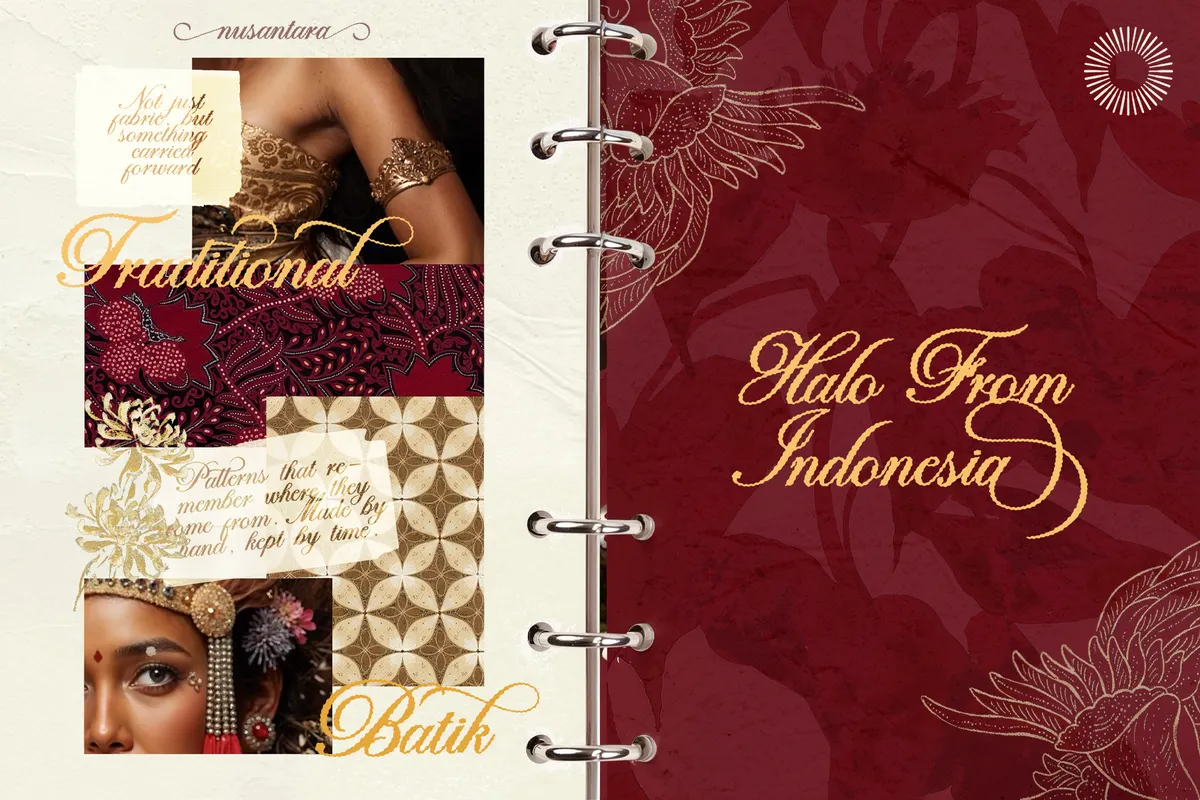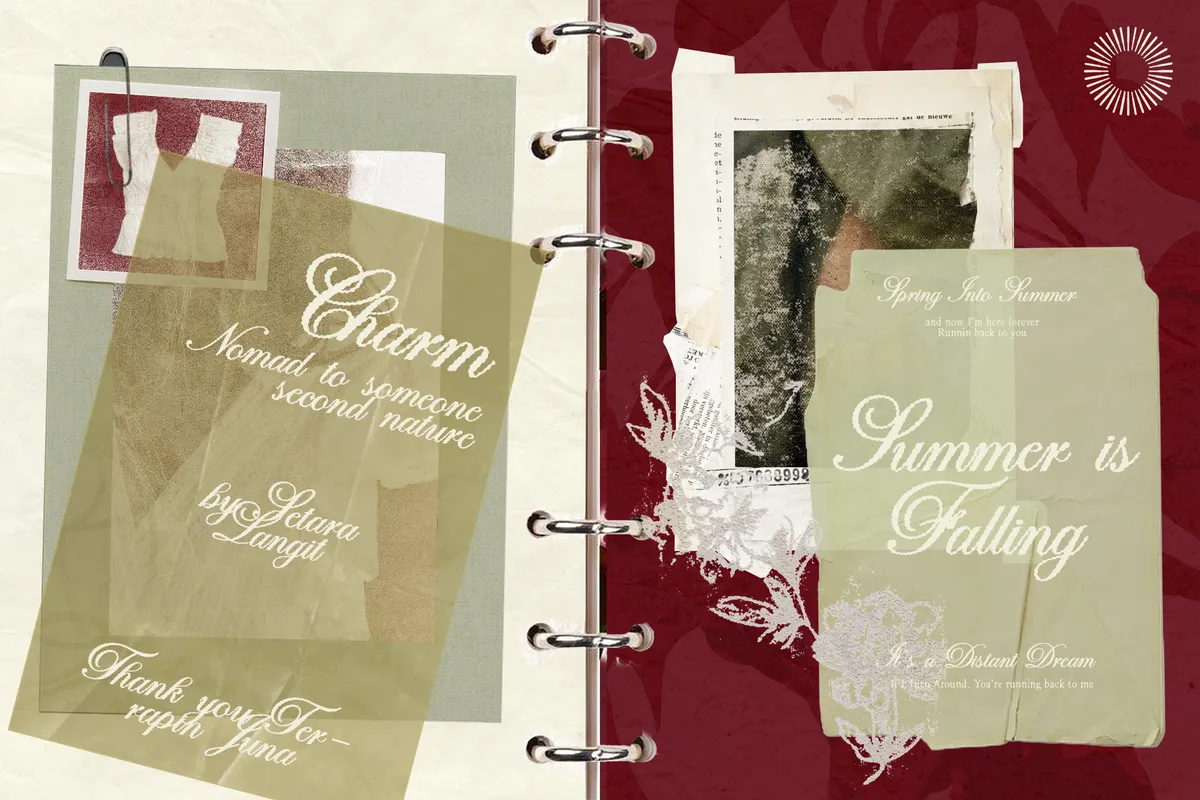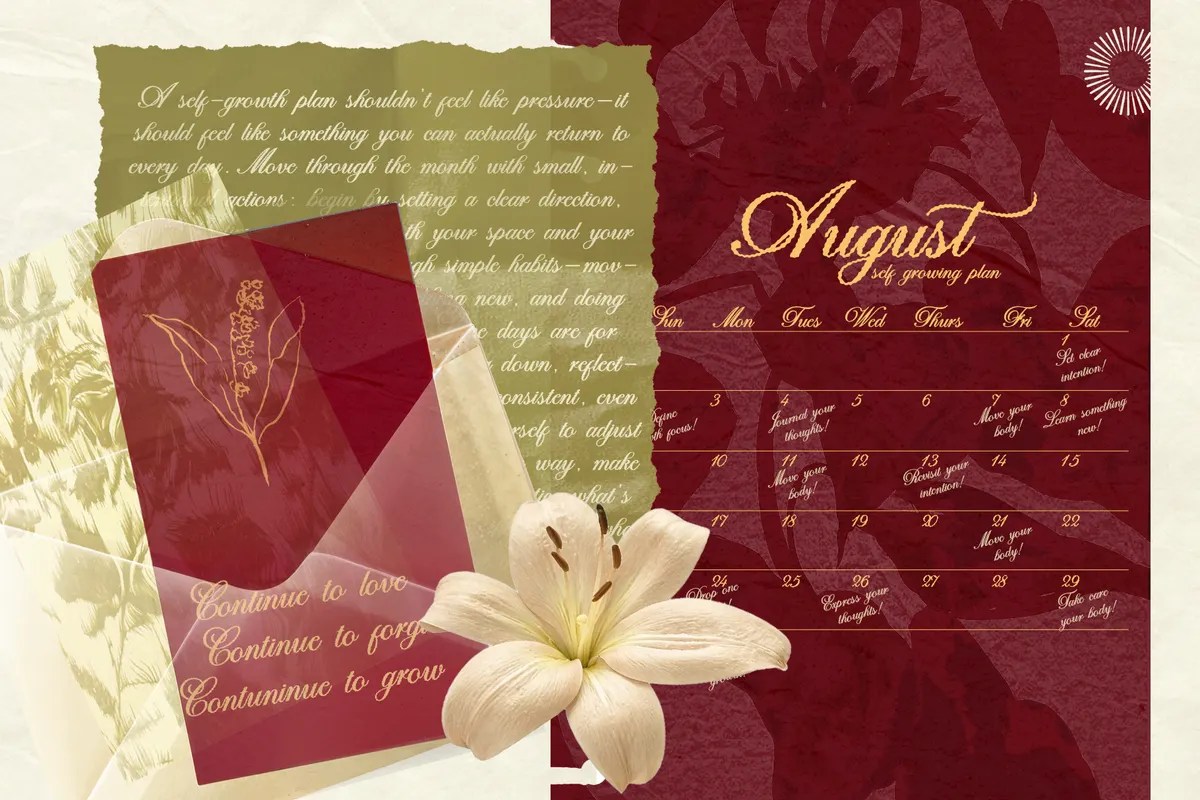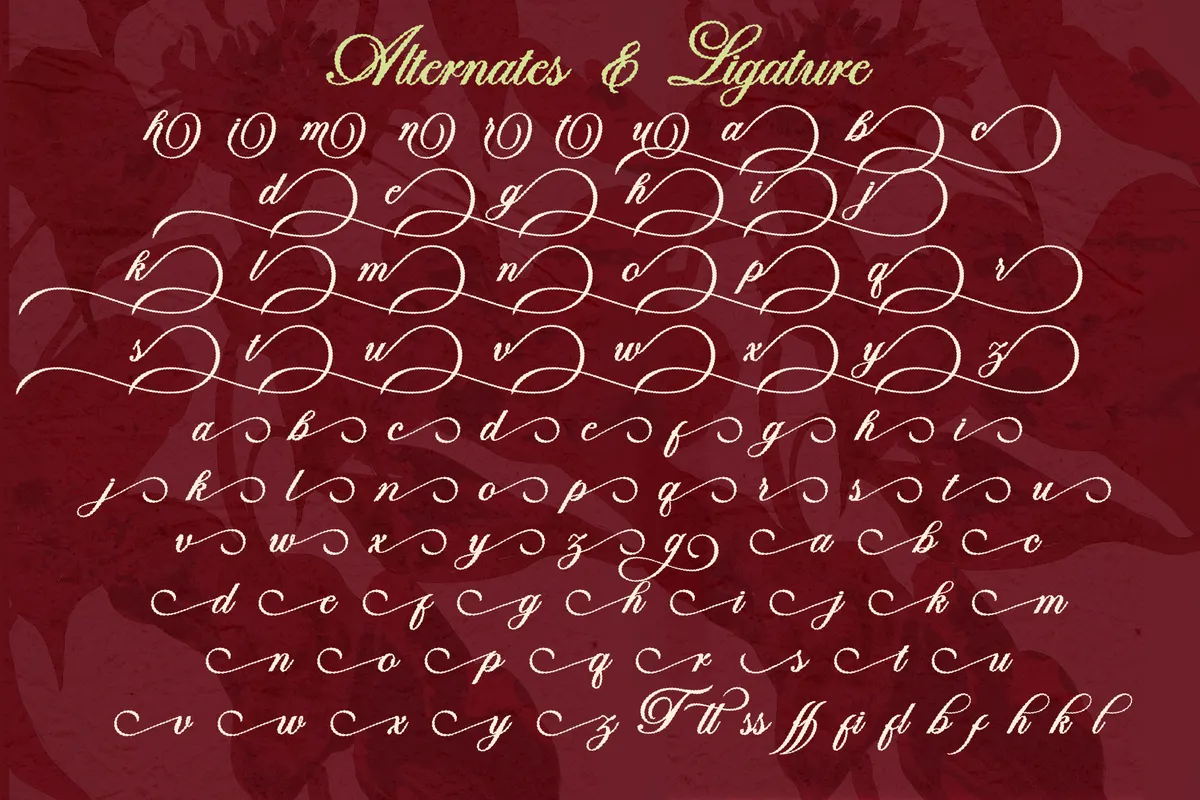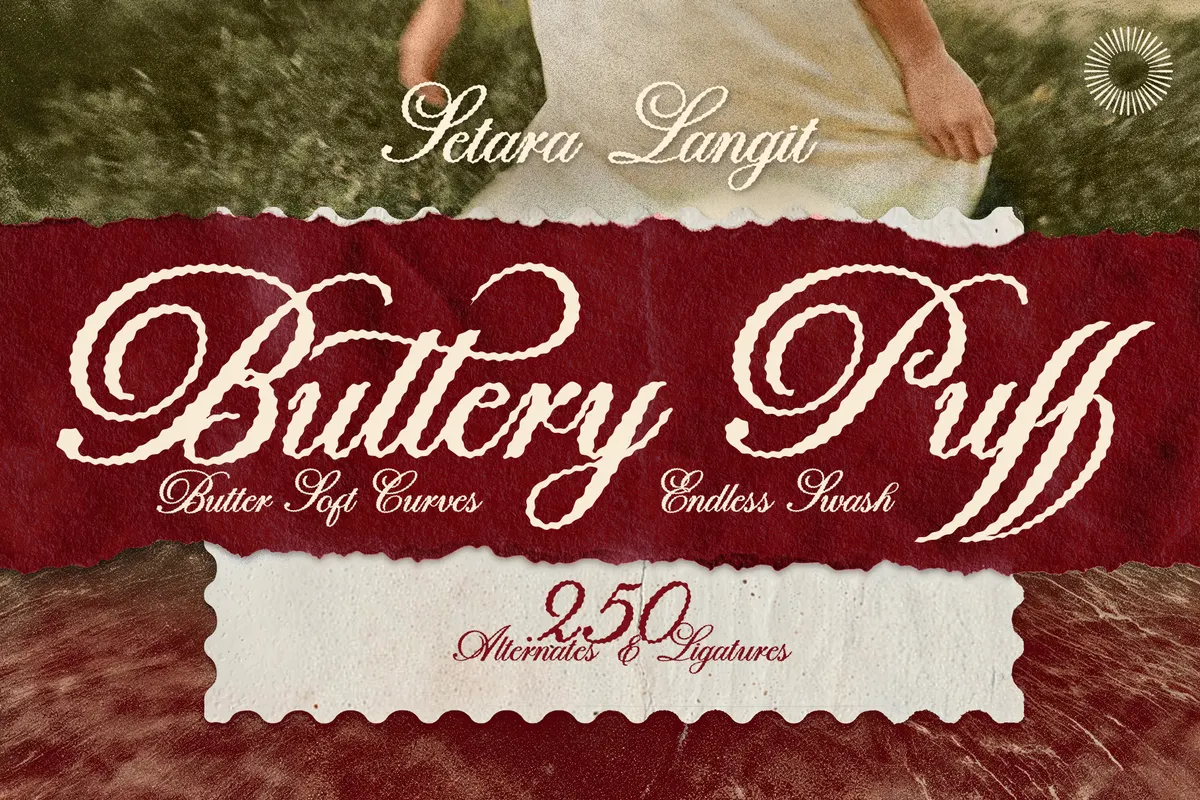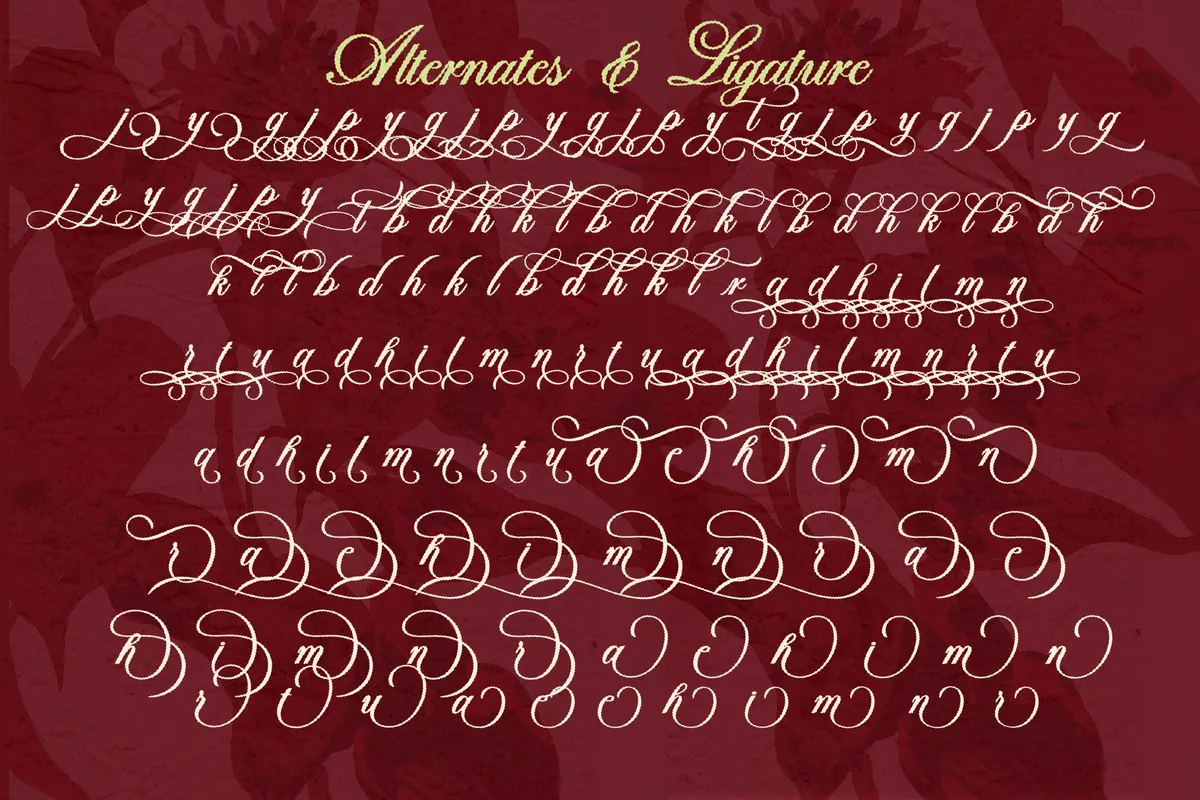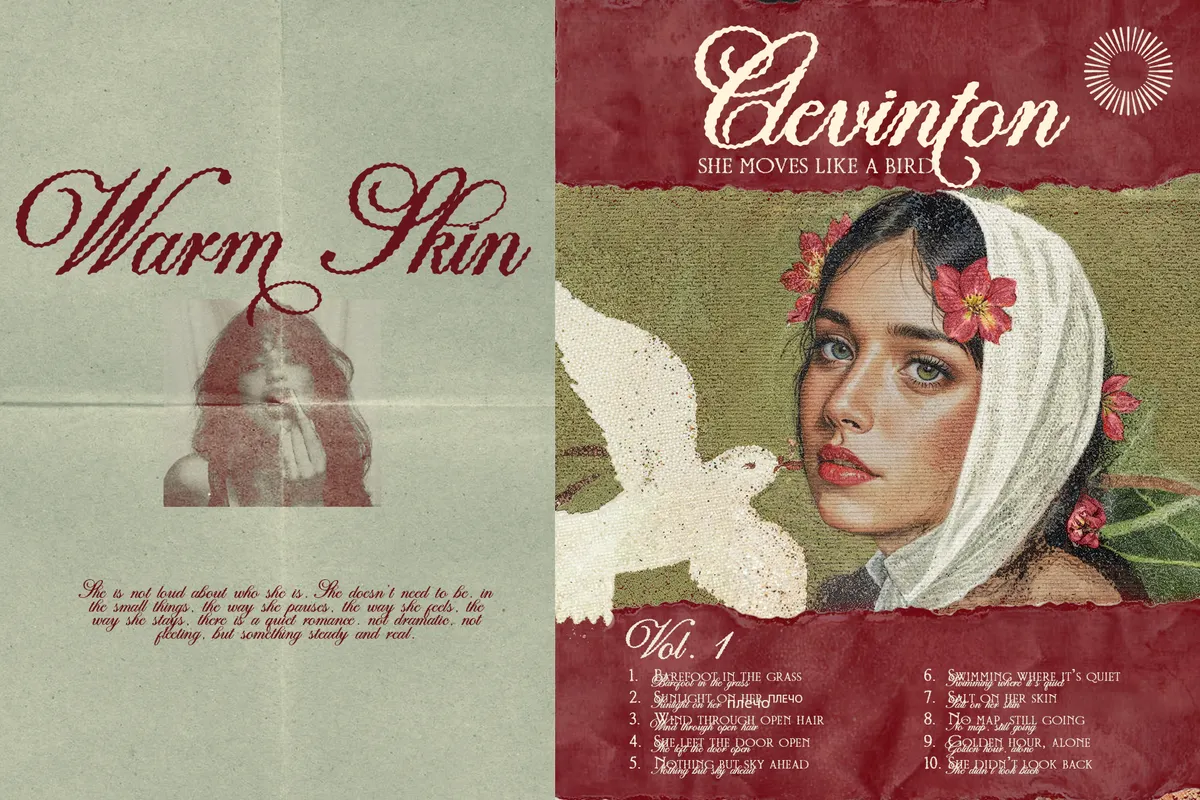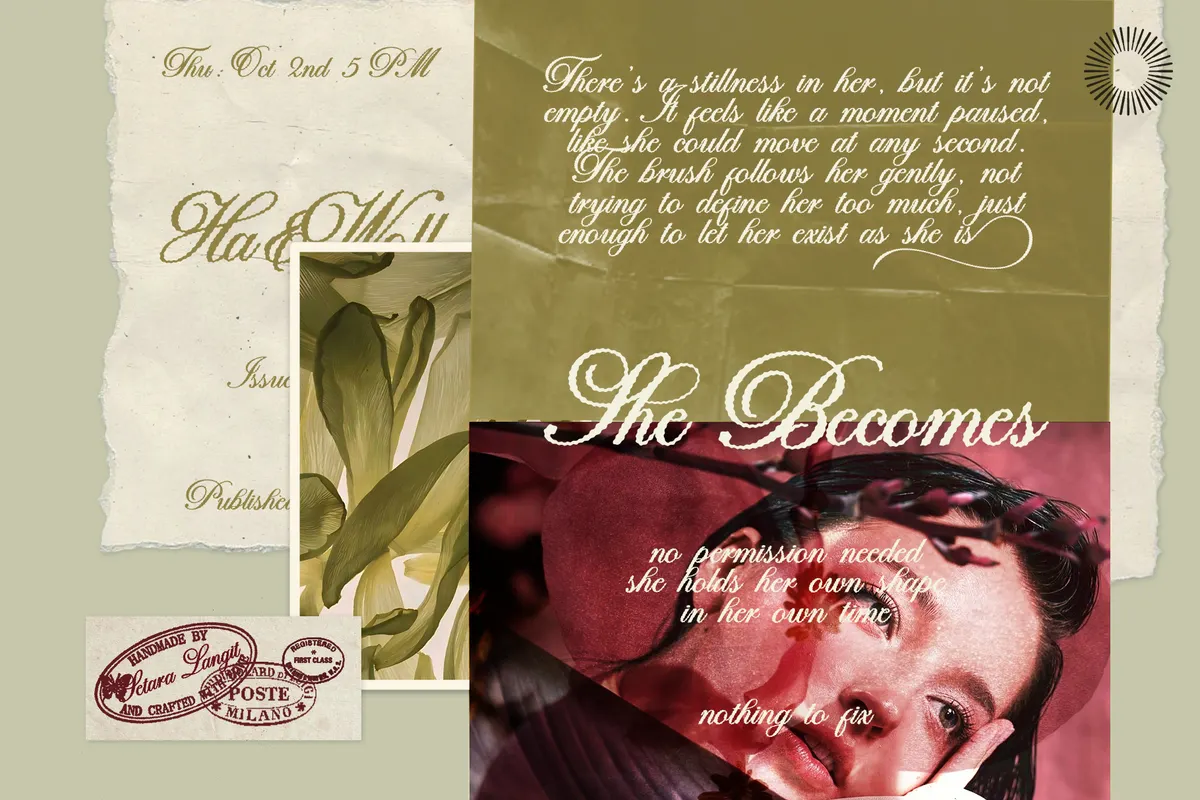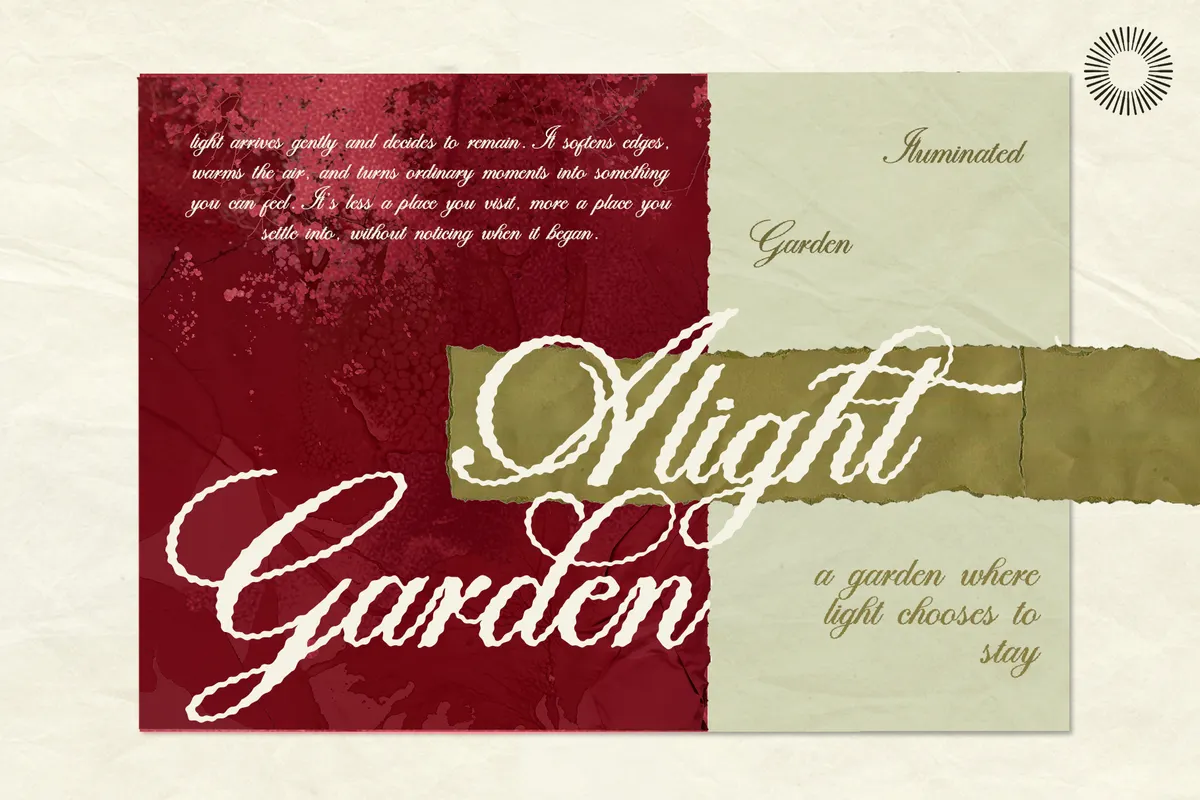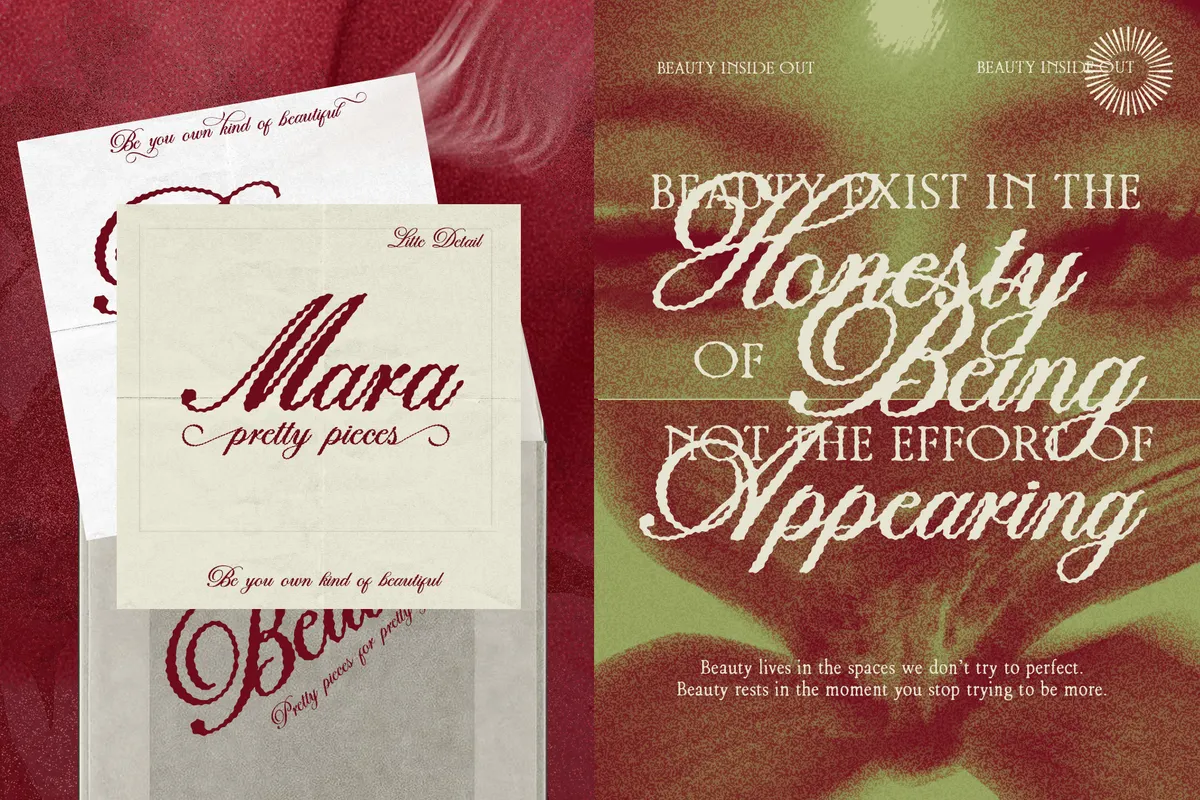
Buttery Puff - Endless Swash Script Font
Buttery Puff
Buttery Puff draws a smooth, looping script with soft curves and heavy swash detail, closer to a hand-lettered wedding invitation than a plain calligraphy face. Twenty stylistic alternate sets swap in looser connecting forms across nearly every letter, and together with standard and discretionary ligatures the set reaches 240-plus alternates and ligatures, all reachable through the OpenType panel.
Real fractions round out the numeral set. Use it for branding, feminine visual identities, wedding stationery, packaging, and editorial titles that want a flowing, romantic voice.
- Uppercase & lowercase;
- Numerals, punctuation & symbols;
- 240+ stylistic alternates and ligatures across 20 sets;
- Fractions;